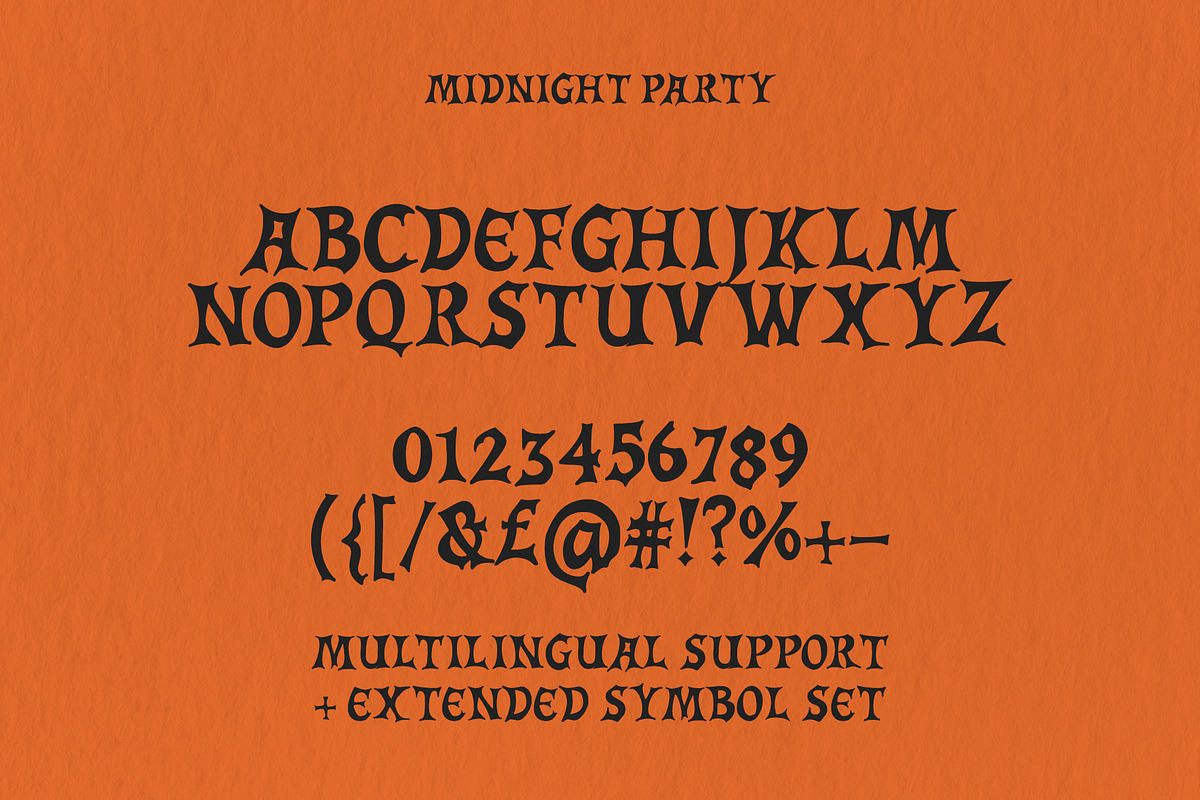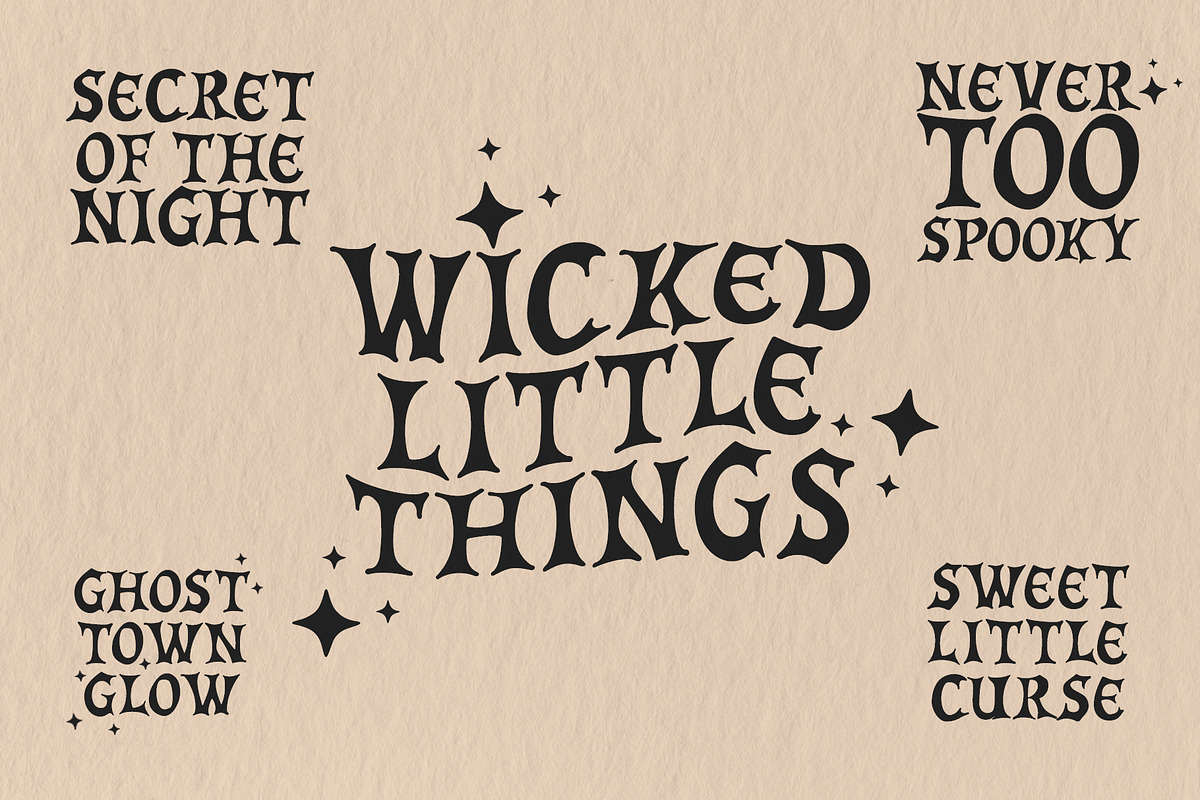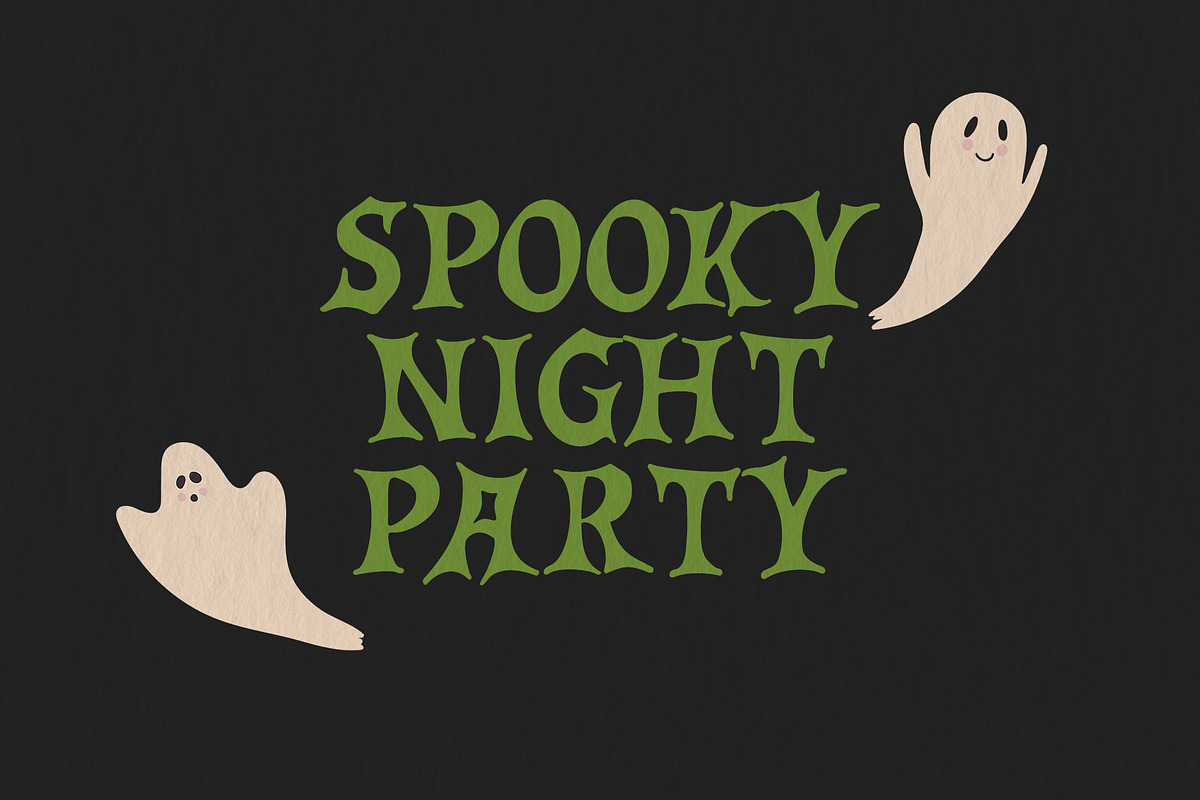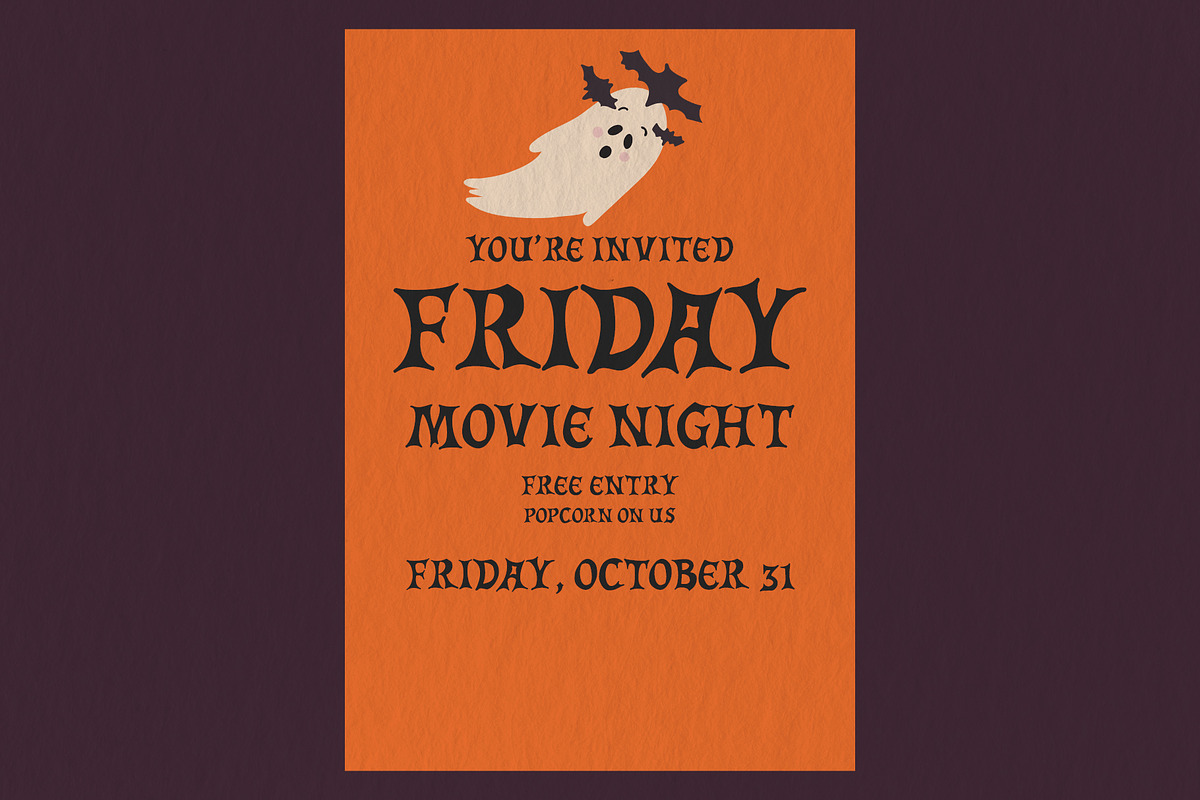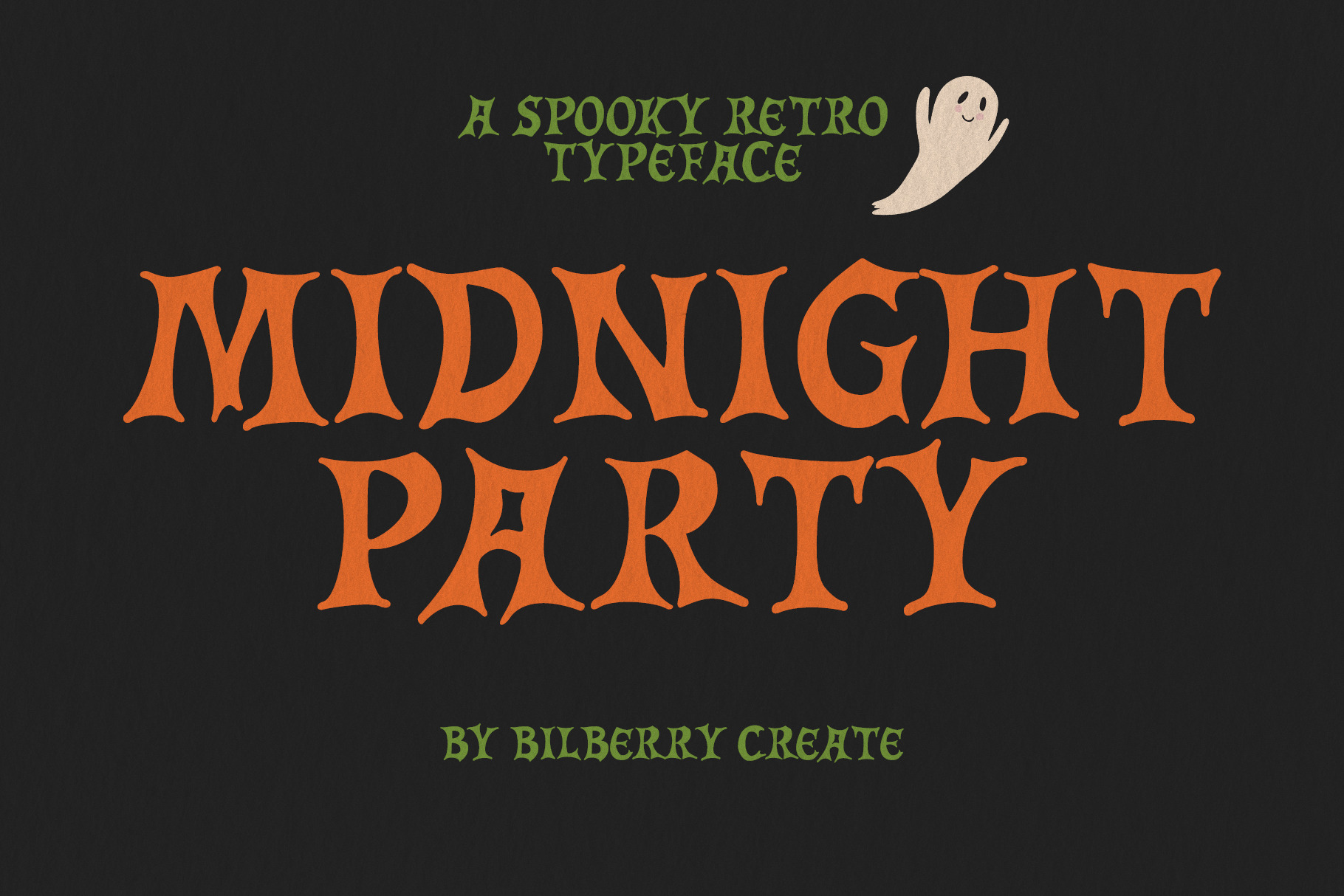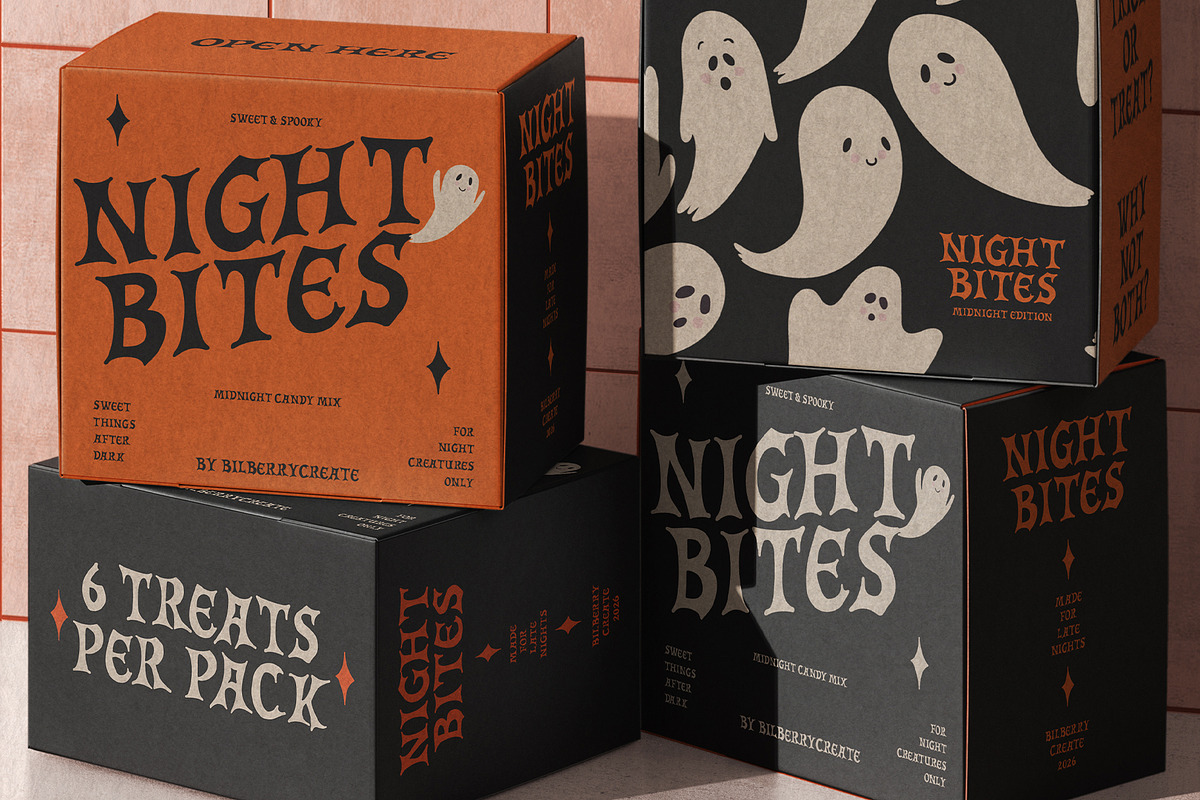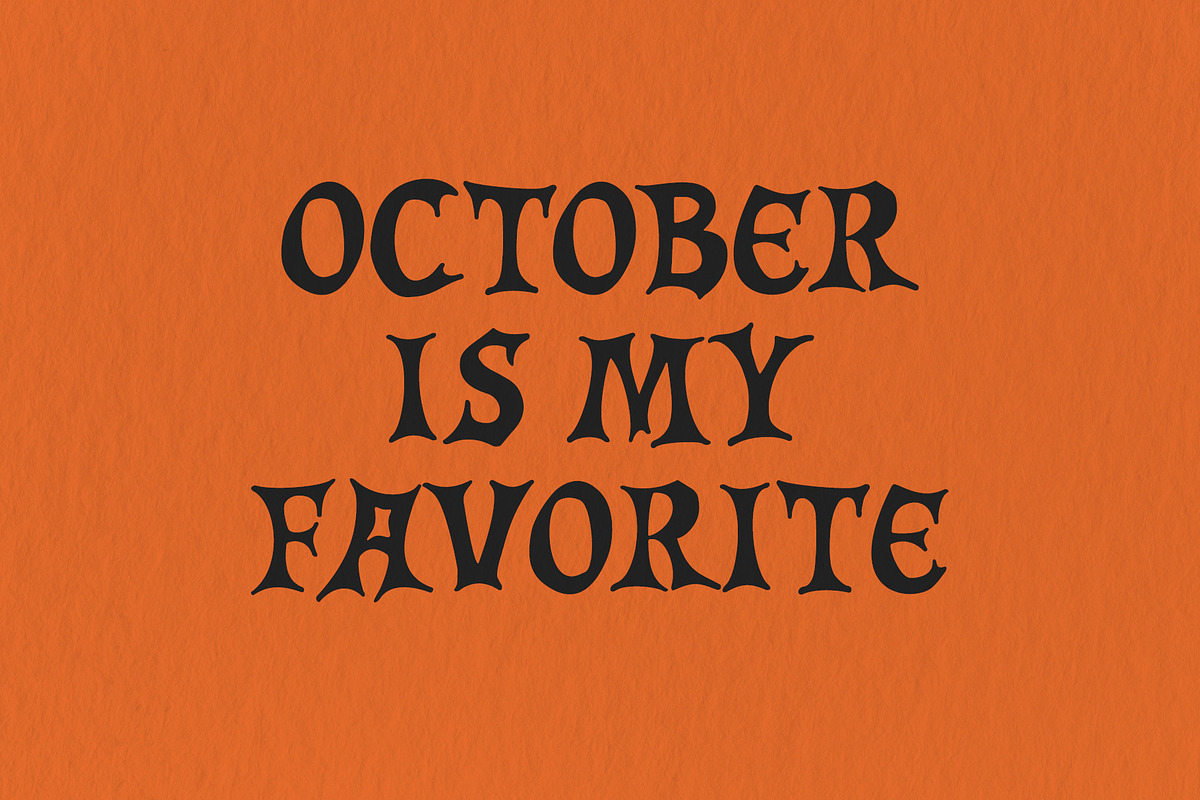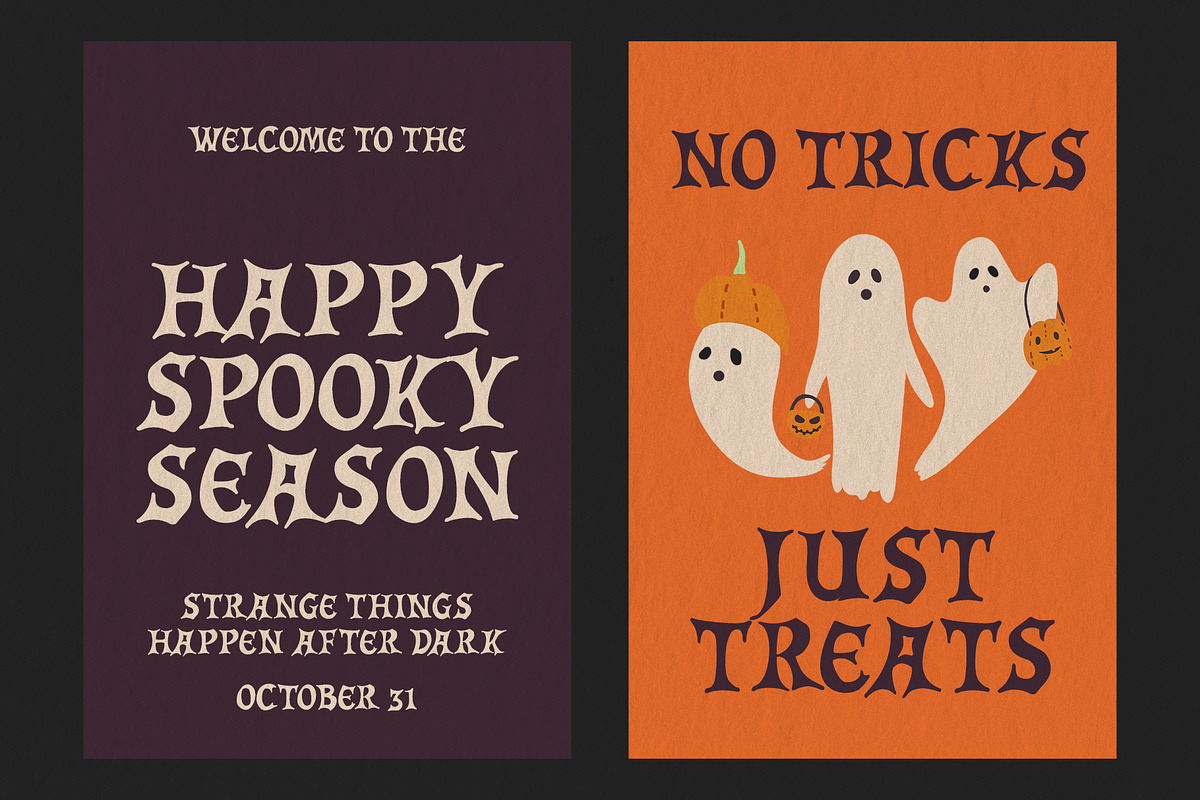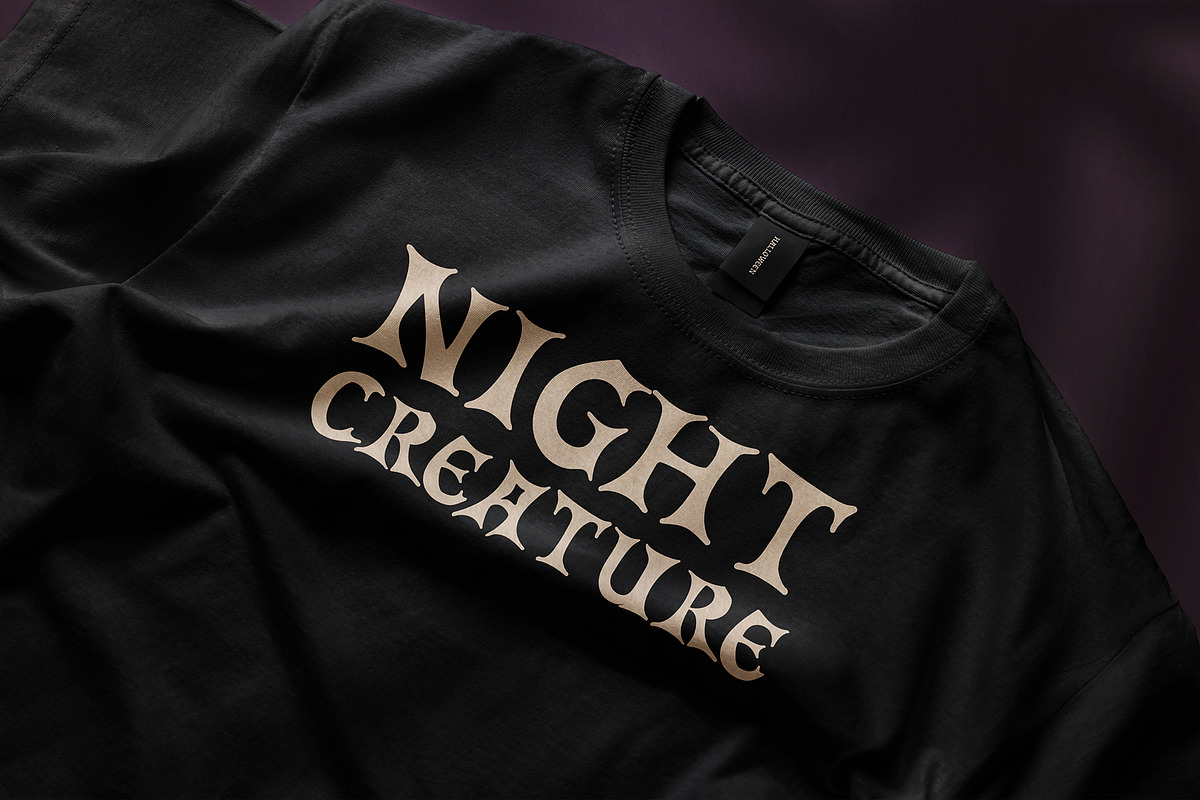
Midnight Party Retro Halloween Font
Midnight Party is a spooky retro display font inspired by vintage Halloween posters, old candy packaging and playful 70s lettering.
With bold, unusual letterforms and a slightly wicked personality, it works especially well for Halloween branding, posters, packaging, invitations, apparel, social media graphics and seasonal designs.
Midnight Party combines a nostalgic retro feel with a playful spooky character, creepy enough for Halloween, but still fun and friendly.
The font includes multilingual support, an extended character set, numbers, punctuation and a wide selection of symbols, making it suitable for both decorative headlines and more detailed typographic layouts.
Halloween posters and invitations
Packaging and branding
T-shirts and merchandise
Editorial headlines
Party flyers
Labels and stickers
Retro and vintage-inspired designs
Extended symbol set
Numbers and punctuation
Distinctive retro display style
Halloween-inspired character shapes